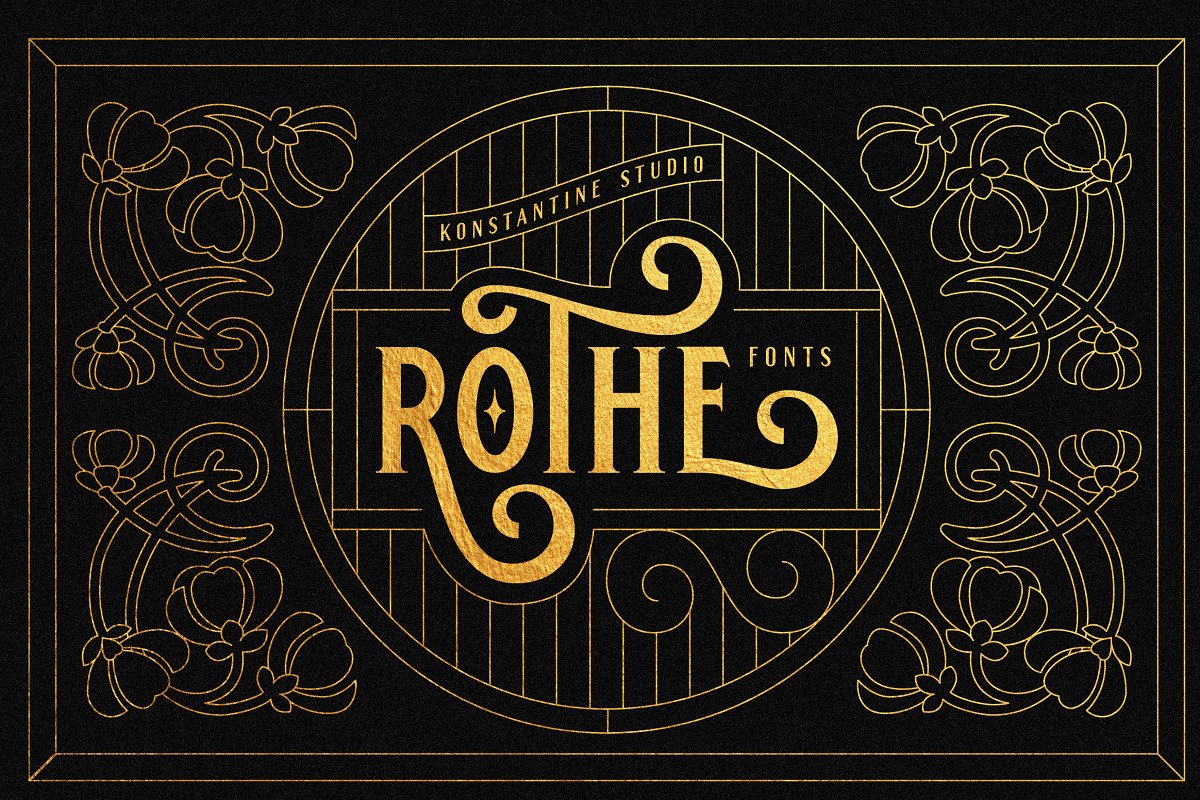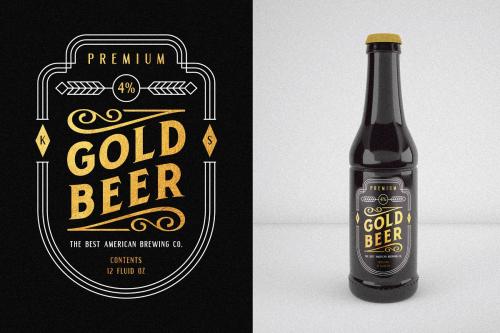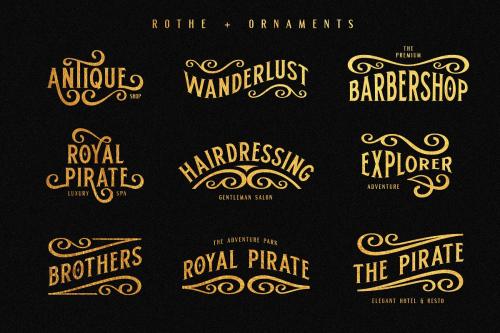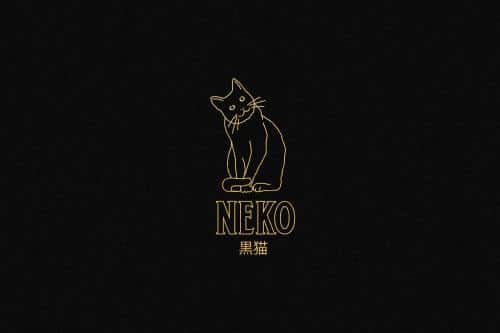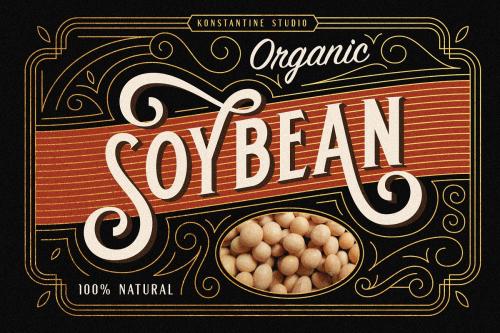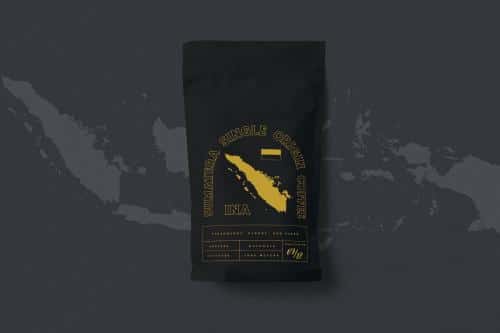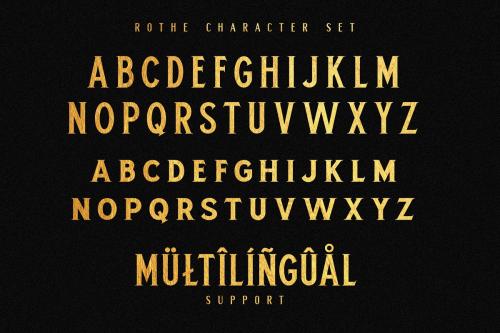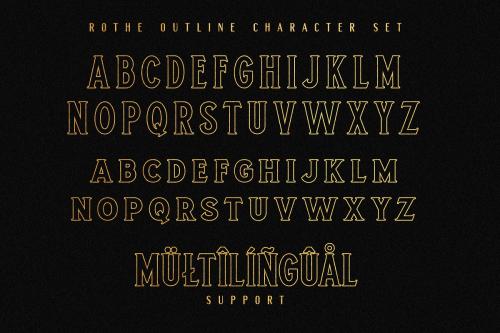
ROTHE, A luxury vintage lettering style fonts. Inspired by the branding from the vintage classic era with the full decorative feels and complex design but still get the luxury feels right away.
- Designer: Konstantine Studio